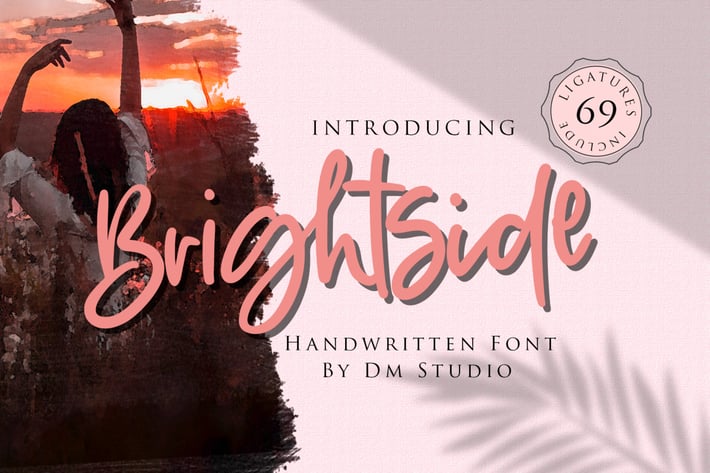
Brightside - Handwritten Brush Font
Introducing, Brightside the handwritten font
It's a girly, expressive, and quirky handwritten style that suits for every stylish and modern designs
-Uppercase, lowercase, numerics and symbols
-including alternative lowercase
-ligatures
-multilingual support